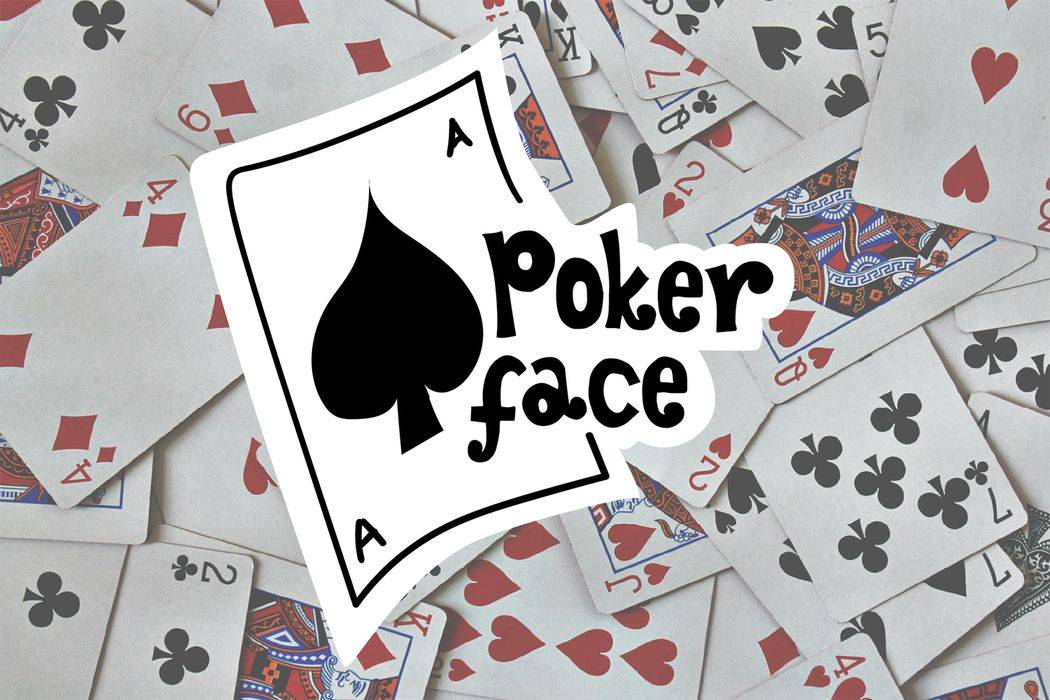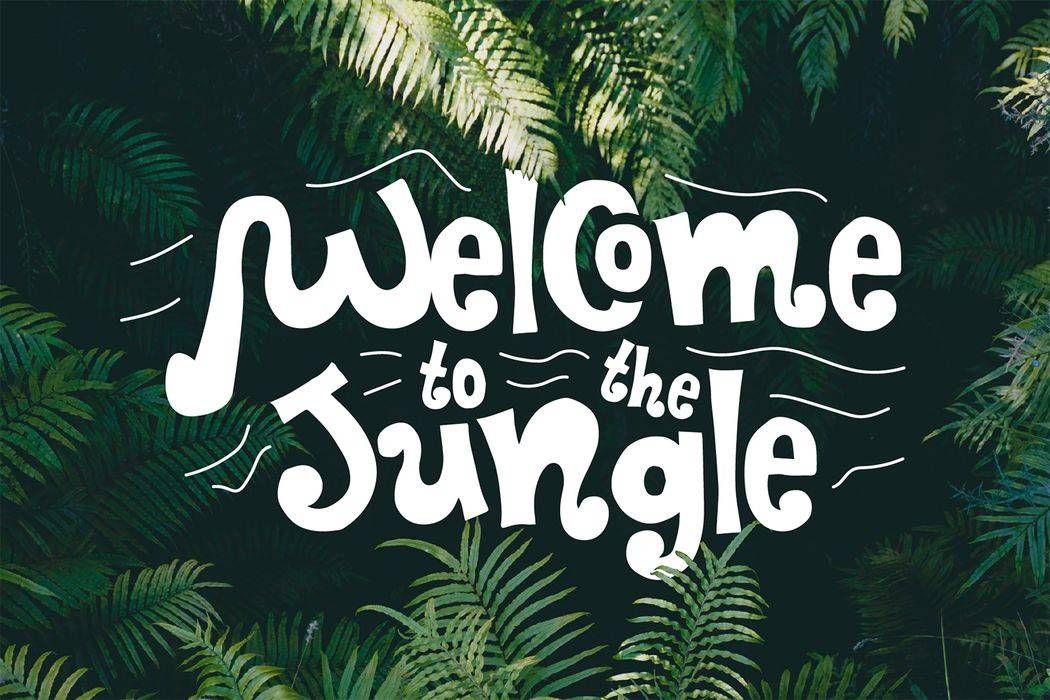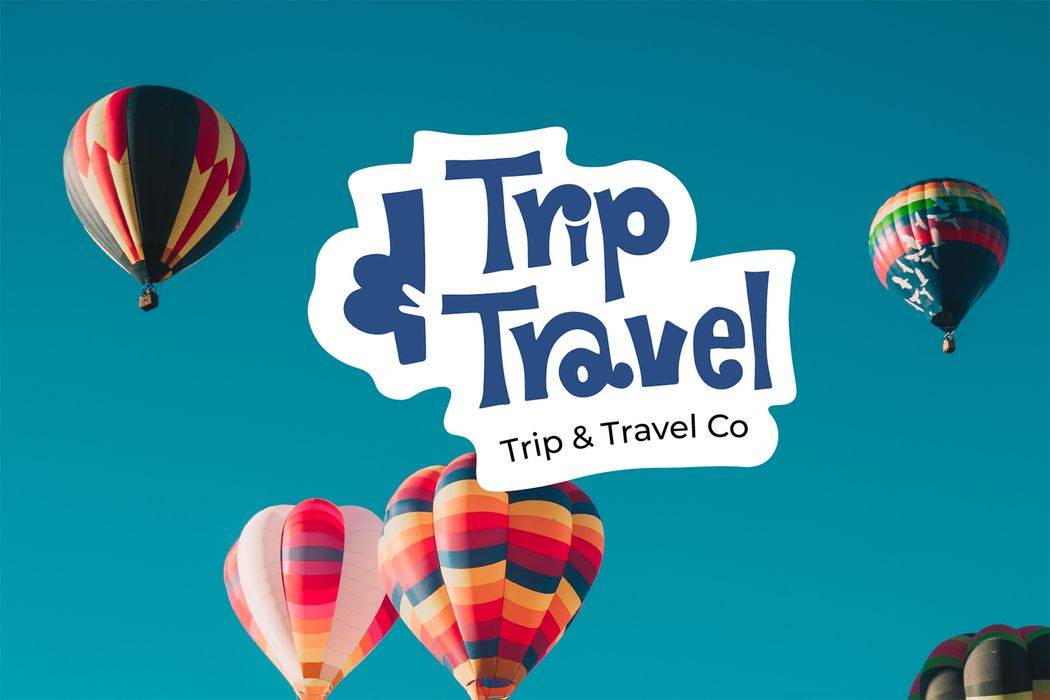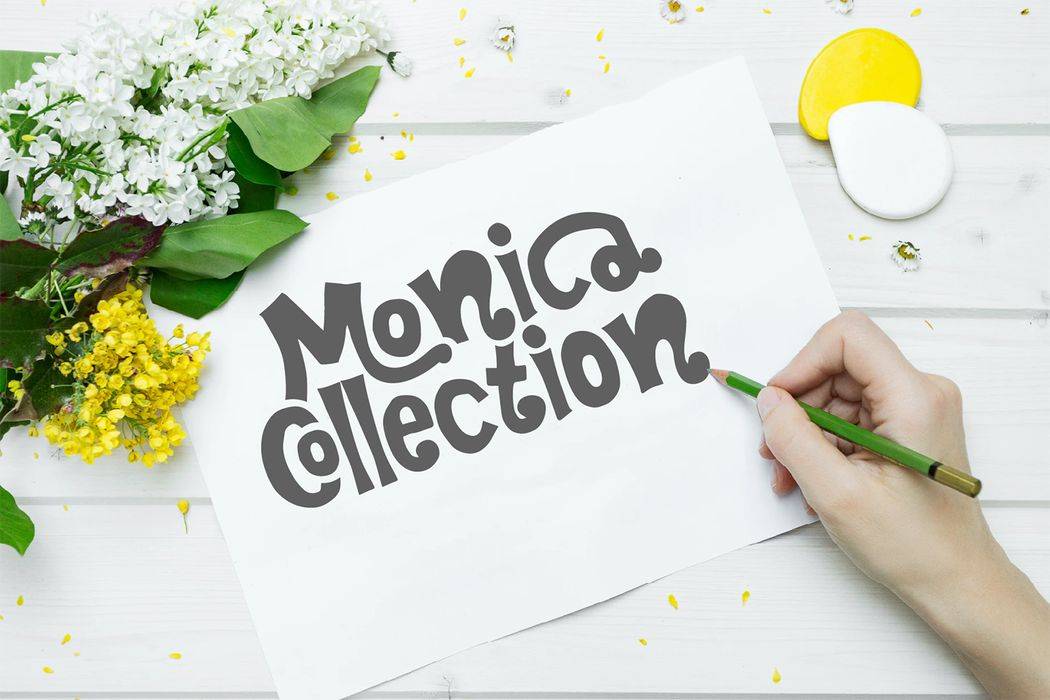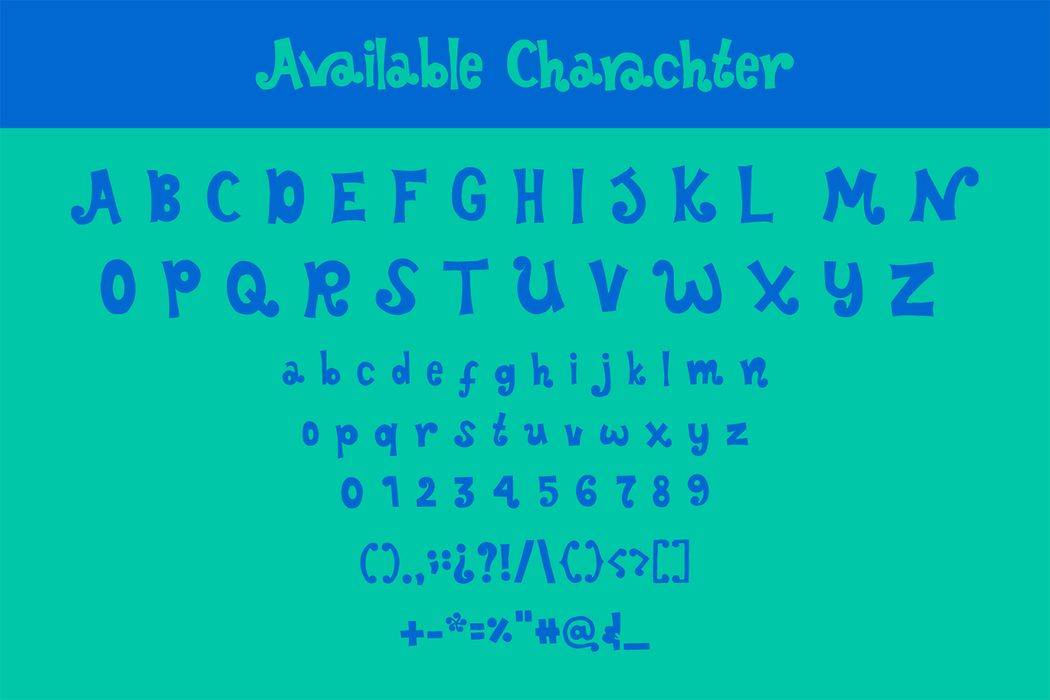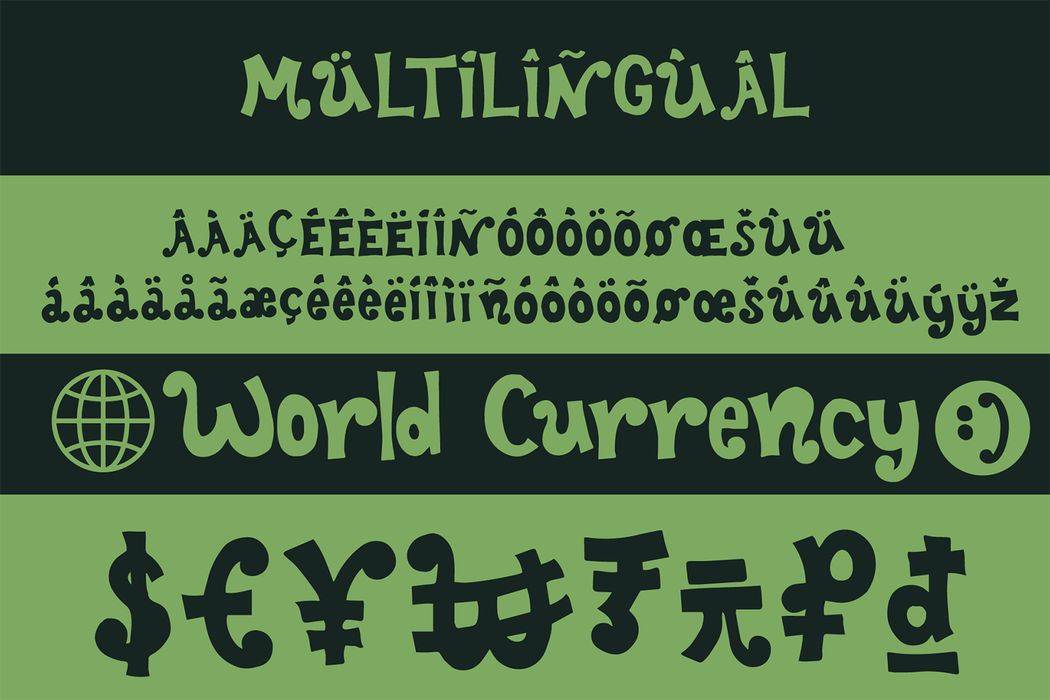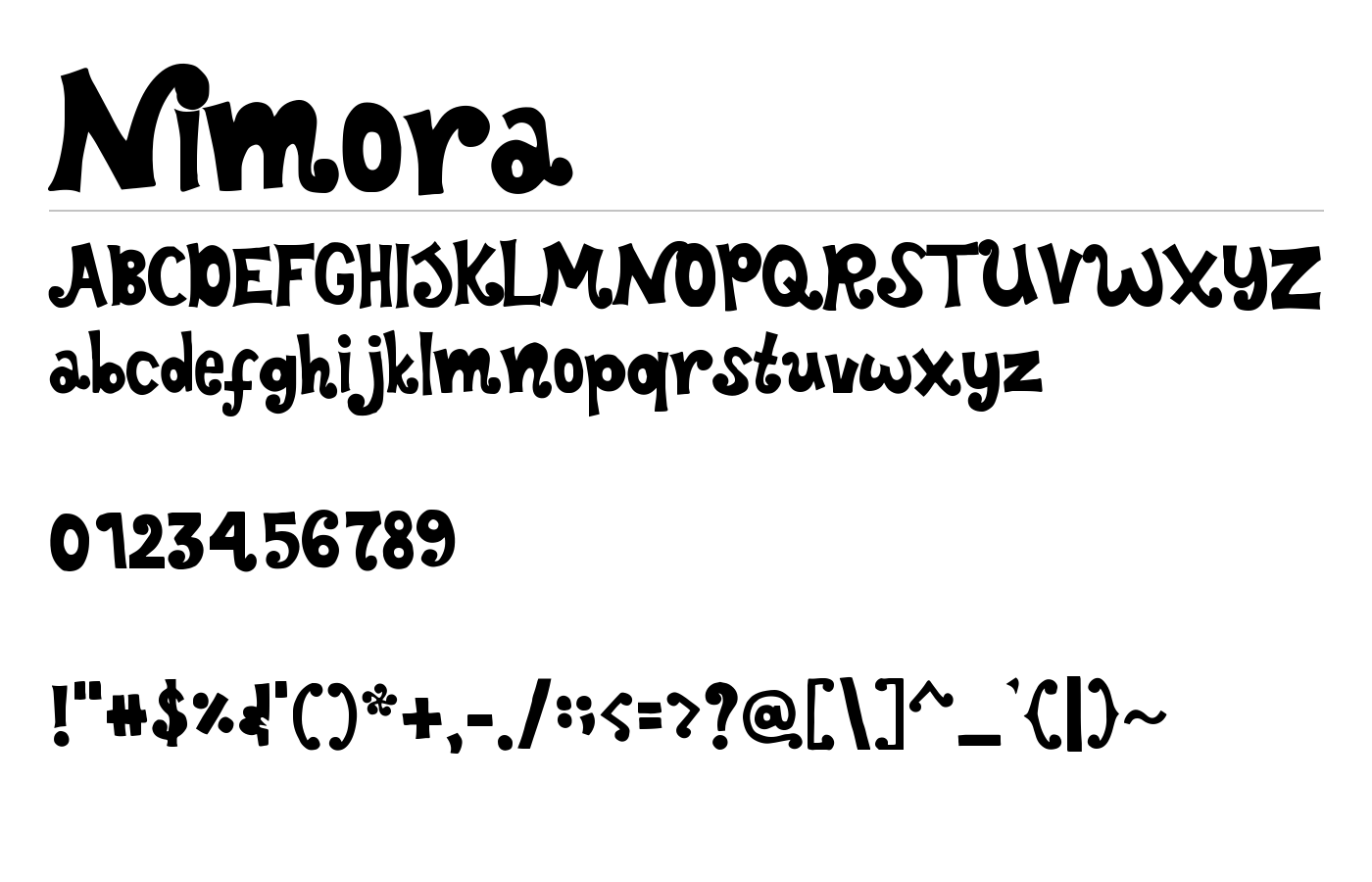
Nimora is a playful and bold serif font with a strong personality, featuring quirky, irregular shapes and thick, uneven strokes that give it a handcrafted, whimsical feel. Its chunky serifs and lively letterforms make it perfect for creative projects, children’s books, or any design seeking a fun and informal vibe. This font stands out best in logos, posters, and headlines where its energetic style can truly shine.
Nimora Font
About Nimora Font
| Font family | Nimora Font |
| Languages supported | Latin, Thai, CJK, Symbols |
| Release date | 2020-11-18 |
| Designer | Khairil Anwar |